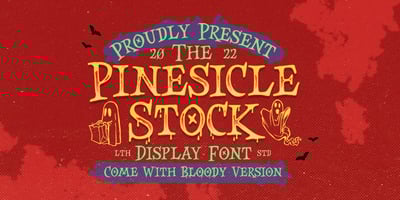
The Pinesicle Stock
The Pinesicle Stock font
The Pinesicle Stock Font Family was designed by Hendry Juanda and published by Letterhend. The Pinesicle Stock contains 2 styles and family package options. Introducing, Pinesicle Stock – A display typeface font with horror theme but fun and playful at the same time. This font has unique looks very suitable for horror, thriller and spooky theme design. Comes with two style, regular and bloody. This font also perfectly made to be applied especially in logo, and the other various formal forms such as invitations, labels, logos, magazines, books, novels, labels or any type of advertising purpose.Features : two styles, regular & bloody version uppercase and lowercase numbers and punctuation multilingual PUA encoded We highly recommend using a program that supports OpenType features and Glyphs panels like many of Adobe apps and Corel Draw, so you can see and access all Glyph variations.